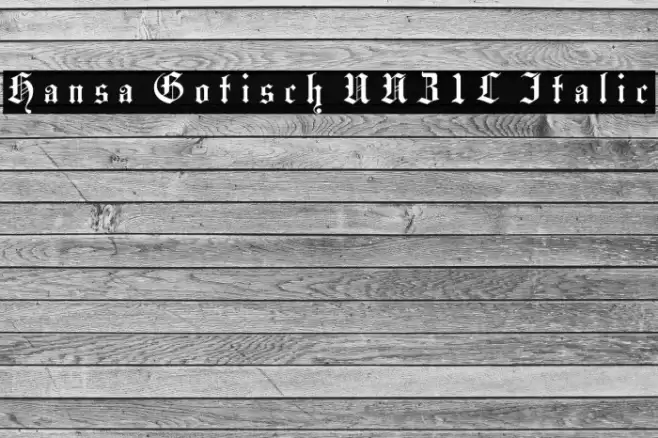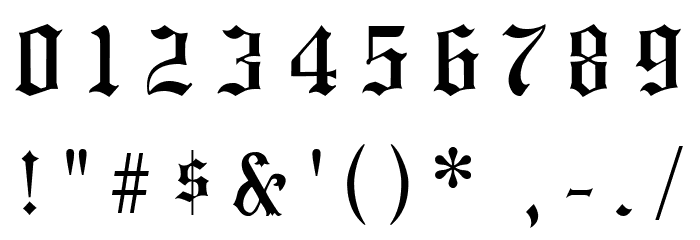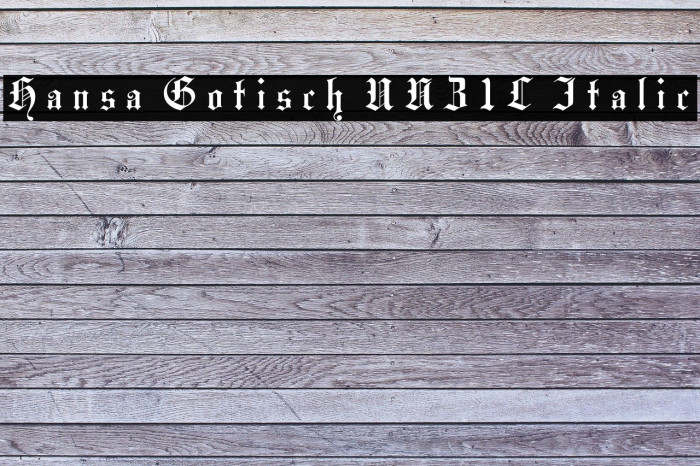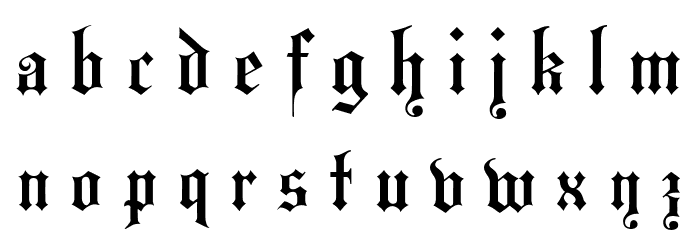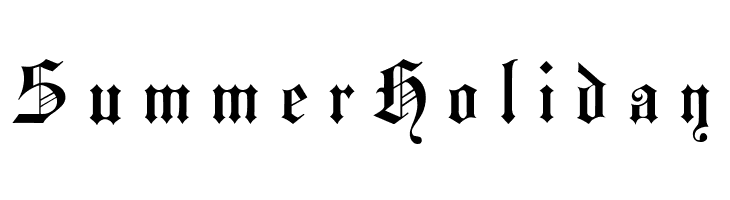
Hansa Gotisch UNZ1L Italic Font
Hansa Gotisch UNZ1L Italic Description
This font embodies a traditional Blackletter style, characterized by its intricate and ornate design. The uppercase letters feature sharp, angular lines with decorative flourishes, while the lowercase letters maintain a consistent style with slightly less ornamentation. The numerals are bold and distinct, matching the overall aesthetic. Special characters are crafted with the same attention to detail, ensuring a cohesive look. The font's historical and gothic appearance makes it ideal for projects that require a touch of elegance and tradition.
A traditional Blackletter font with ornate, angular designs and decorative flourishes from Uncategorized fonts.
- Proposed Projects: Ideal for historical documents, certificates, wedding invitations, or any project seeking a classic, gothic aesthetic.
- Overall Style: Vintage